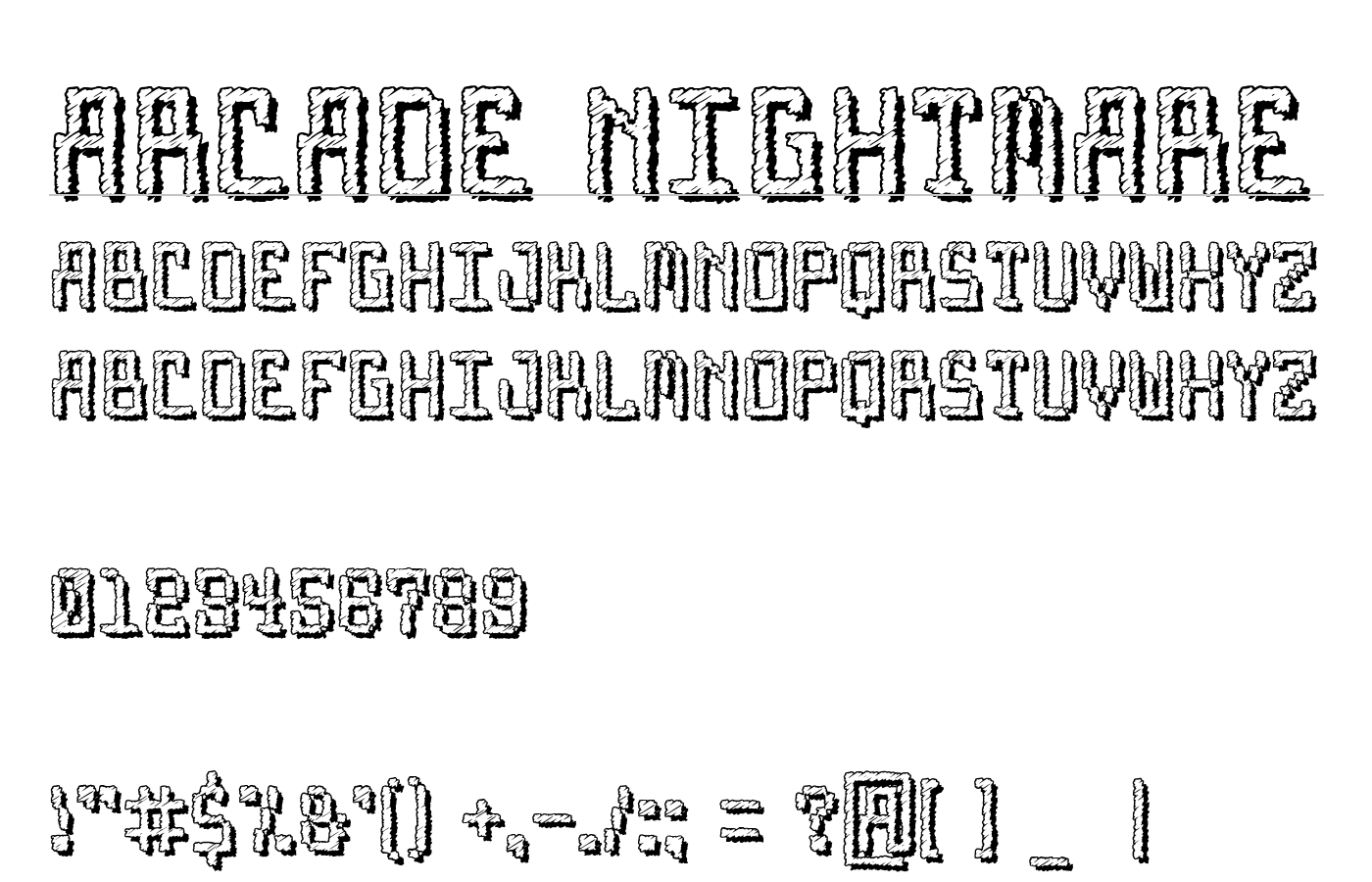
Arcade Nightmare is a bold, distressed sans serif font with a playful, edgy vibe that evokes retro arcade and horror themes. Its rough, textured strokes and blocky shapes give it a dynamic, energetic feel perfect for eye-catching headlines, posters, or game-related designs needing a vintage yet rebellious touch. This font works well for brands or projects wanting to convey excitement, nostalgia, and a bit of spooky fun.
Arcade Nightmare Font
About Arcade Nightmare Font